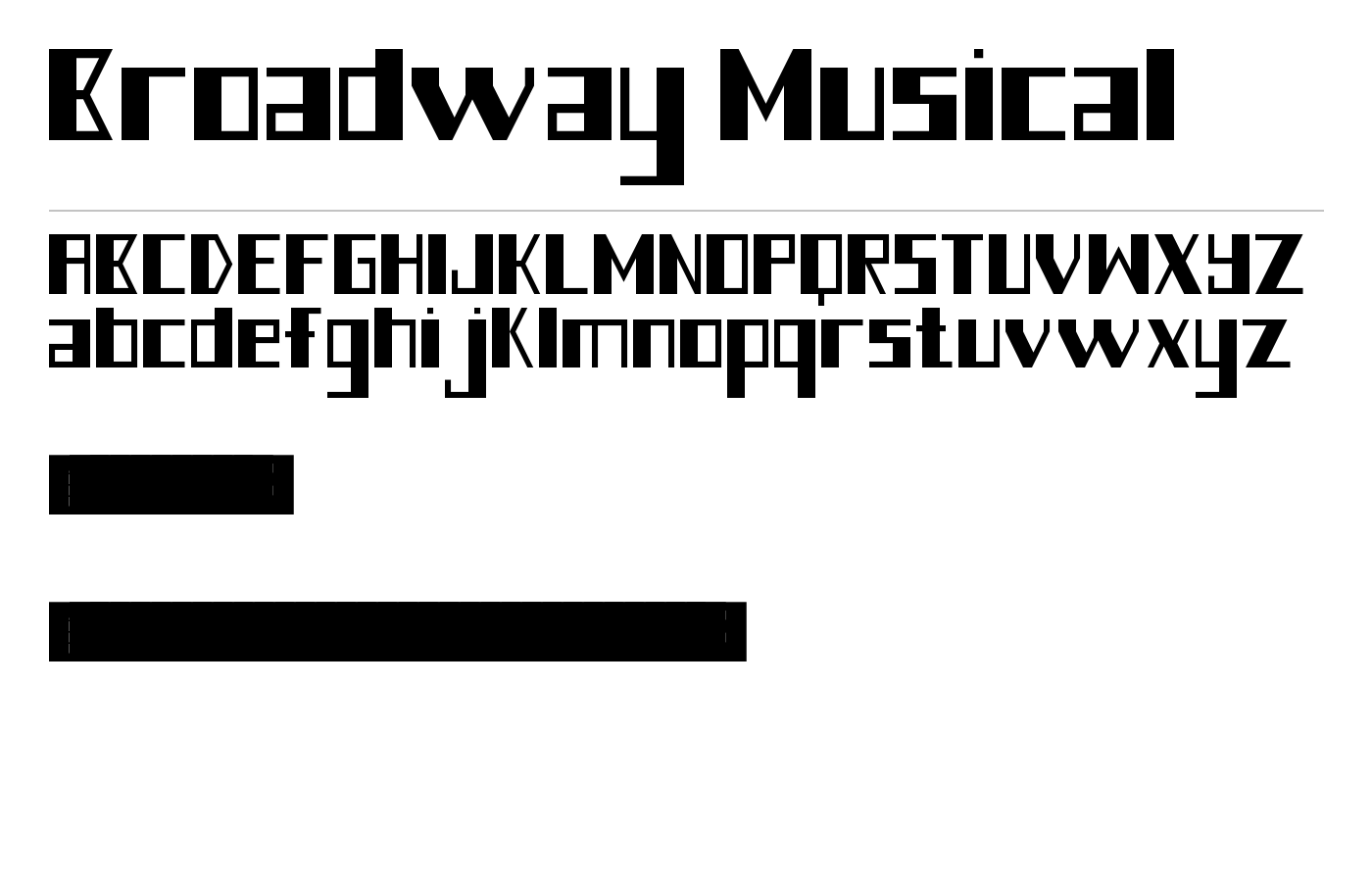
Broadway Musical Font is a bold, geometric sans serif typeface with a distinctive Art Deco flair, characterized by sharp angles and strong vertical lines. Its high contrast and stylized letterforms create a dramatic, vintage theatrical feel, making it ideal for eye-catching headlines, posters, and branding that seeks a glamorous, retro vibe. This font works especially well for entertainment and fashion industries where a striking, memorable look is essential.
Broadway Musical Font
About Broadway Musical Font